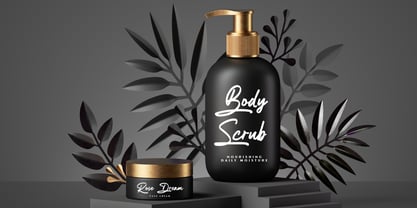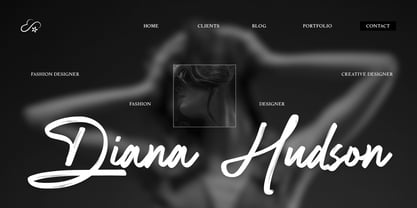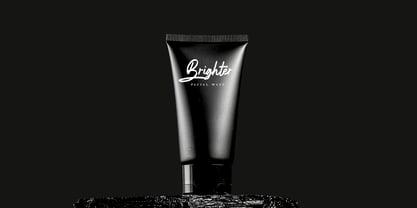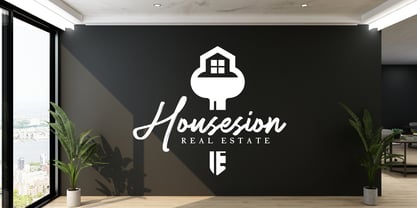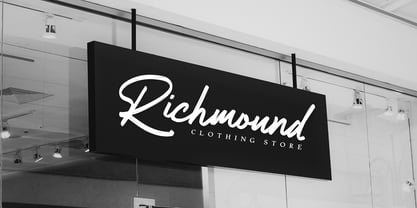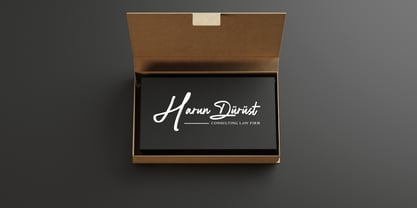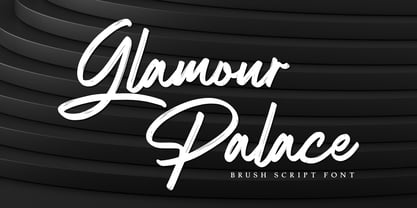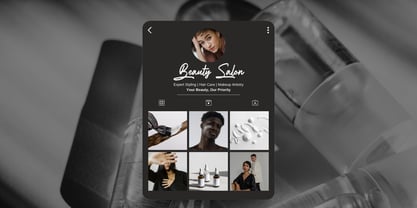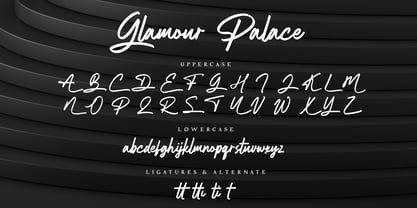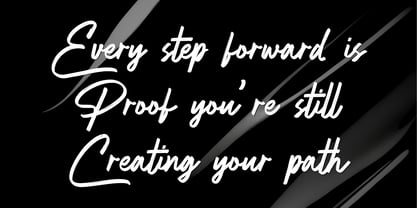
Glamour Palace
by Fikryal
The Glamour Palace Font Family was designed by Muhammad Fikry and published by Fikryal. Glamour Palace contains 1 styles. More about this family
Glamour Palace is an elegant brush script font that exudes luxury and sophistication, perfect for enhancing your typography. Drawing inspiration from natural handwritten lettering, this font showcases smooth brush strokes and a refined, expressive character. Its beautifully crafted uppercase letters deliver a stunning luxury signature aesthetic, making it ideal for premium branding and logo design. With features like ligatures and stylistic alternates, Glamour Palace allows for the creation of unique and elegant lettering compositions that maintain a natural handwritten feel. This font is perfect for a variety of applications, including logos, branding, wedding stationery, cosmetic packaging, fashion editorials, product labels, social media, and other high-end design projects.